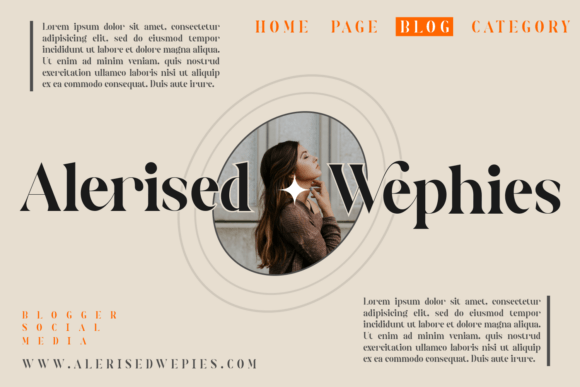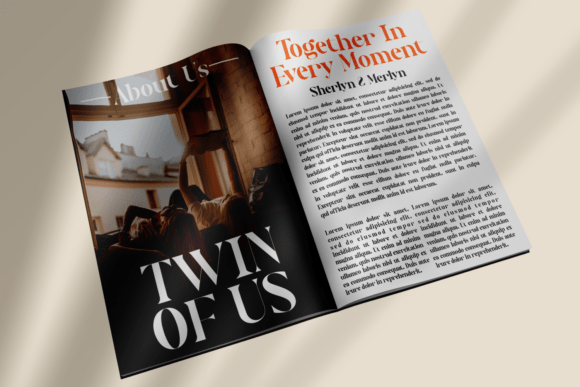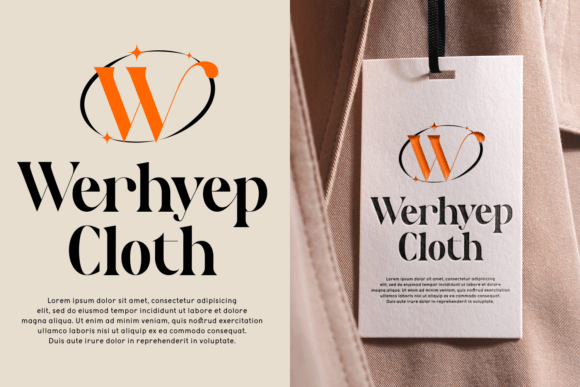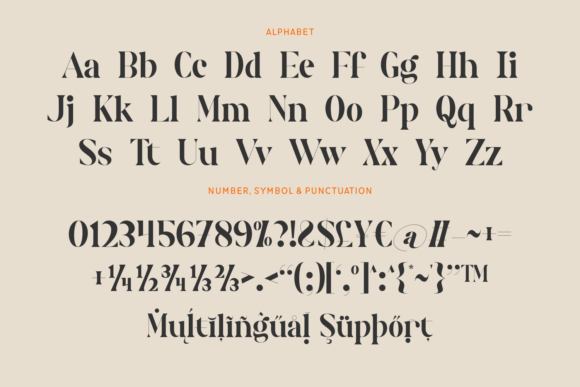
Introducing Deep Walker Font: Elevate Your Designs with Elegance and Sophistication
In the world of typography, fonts play a crucial role in conveying the tone and personality of a brand or creative project. For designers and crafters seeking to make a statement, Deep Walker Font is an exceptional choice. This modern, stylish serif font seamlessly blends bold elegance with expressive character, making it perfect for fashion branding, editorial layouts, logos, and upscale packaging.
Key Features of Deep Walker Font
- High Contrast Strokes: Deep Walker boasts high contrast strokes that add a touch of sophistication and drama to any design. The stark contrast between thick and thin lines creates a visually appealing effect, drawing attention to the text.
- Graceful Curves: The font’s elegant curves and refined lines evoke a sense of luxury and refinement. These curves add a touch of warmth and approachability, making Deep Walker perfect for designs that require a balance of sophistication and friendliness.
- Decorative Ligatures: Deep Walker features decorative ligatures that add an extra layer of creativity and flair to your designs. These ligatures provide a unique opportunity to add visual interest and personality to your text, setting it apart from more traditional fonts.
Perfect for Fashion Branding and Editorial Layouts
Fashion brands and editorial layouts require fonts that exude elegance, sophistication, and style. Deep Walker Font checks all these boxes, making it an ideal choice for:
- Fashion Branding: Use Deep Walker to create stunning logos, advertisements, and marketing materials that reflect your brand’s high-end personality.
- Editorial Layouts: Add a touch of refinement to your editorial designs, such as magazines, newspapers, and blogs, with Deep Walker’s elegant and sophisticated typography.
Logos and Upscale Packaging
Deep Walker Font is also perfect for creating striking logos and upscale packaging designs. The font’s bold, elegant, and refined lines make it an excellent choice for:
- Logos: Create memorable and impactful logos that convey your brand’s values and personality.
- Upscale Packaging: Elevate your packaging designs with Deep Walker’s sophisticated typography, perfect for luxury brands and high-end products.
Why Choose Deep Walker Font?
With Deep Walker Font, you can:
- Add Refined Drama: Bring a sense of refined drama to your designs with Deep Walker’s bold, elegant, and sophisticated typography.
- Convey Contemporary Charm: Use Deep Walker to add a touch of contemporary charm to your designs, making them more engaging and appealing to your audience.
- Stand Out: With its unique blend of high contrast strokes, graceful curves, and decorative ligatures, Deep Walker Font helps your designs stand out from the crowd.
Deep Walker Font is a versatile and sophisticated serif font that can elevate any creative project. Its modern, stylish design makes it perfect for fashion branding, editorial layouts, logos, and upscale packaging. With its high contrast strokes, graceful curves, and decorative ligatures, Deep Walker adds a sense of refined drama and contemporary charm to any design. For designers and crafters seeking to make a statement, Deep Walker Font is an exceptional choice.